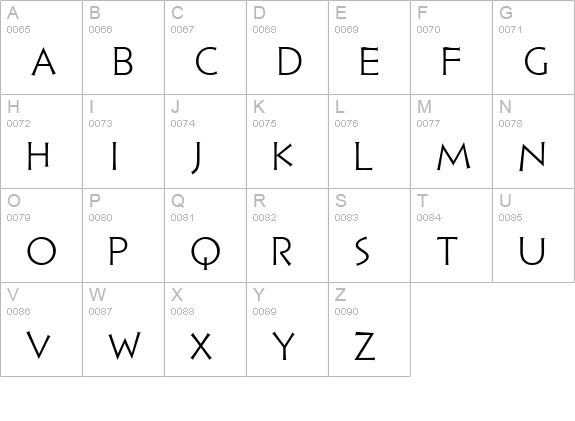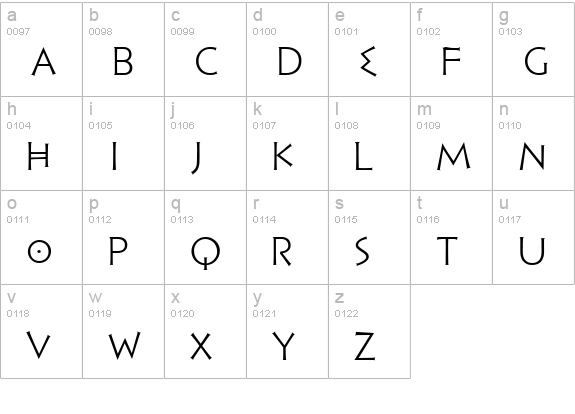
PFHellenicaSerifPro-Light Font Details
PFHellenicaSerifPro-Light is a refined, elegant variant in the PFHellenicaSerifPro typeface family \xE2\x80\x94 well suited to elegant body text, refined sub-headings, and luxury branding.
PFHellenicaSerifPro-Light is a beautifully crafted serif font that exudes elegance and sophistication. With its delicate and refined letterforms, this typeface is perfect for creating a classic and timeless look in your designs. The light weight of the font gives it a graceful and airy appearance, making it ideal for use in body text or headings. What sets PFHellenicaSerifPro-Light apart is that it is available for free download at FontsMarket.com. This means you can easily access this high-quality font without any cost, making it a valuable addition to your font collection. Whether you are working on a print project, web design, or branding, PFHellenicaSerifPro-Light offers versatility and style that will elevate your work to the next level. Experience the beauty and sophistication of this font today by downloading it for free at FontsMarket.com.